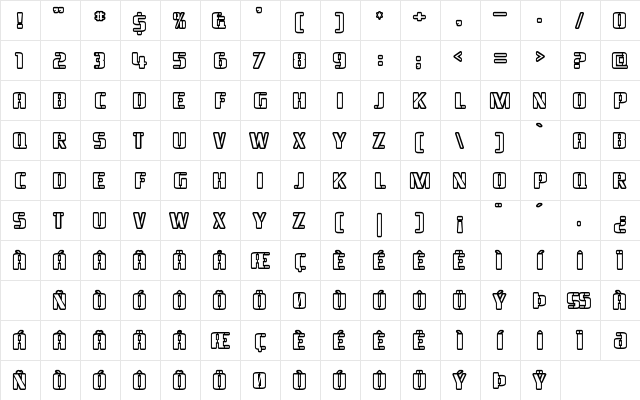
Braeside Outline Regular Free Font
Braeside Outline Regular
Design Context for Braeside Outline
Braeside Outline is built around its visual character rather than neutral utility - its distinctive forms are designed to make an impression at display sizes.
Font Pairing: Pair with a clean neutral sans-serif for body copy to let Braeside Outline's character lead without overwhelming the composition.
Pro Tip: Use Braeside Outline exclusively at display sizes - it was designed to be seen, not read at length. Let a neutral companion handle body copy.